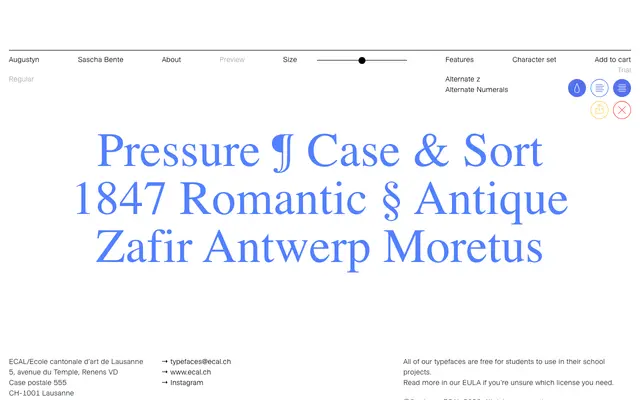
Augustyn Display
ECAL Typefaces · Sascha Bente · 2020
A high-contrast display serif drawn from an 18th-century Antiqua specimen found in the Plantin Moretus Museum in Antwerp.
Designed by Sascha Bente in 2020, Augustyn Display traces its origins to a letter-proof of an obscure 18th-century Antiqua, revived with careful attention to its historical character. The generous proportions and strong stroke contrast make it suited to large-scale headings and editorial display work. Its source material gives it a period warmth that distinguishes it from more generic revival serifs.
Derived from an 18th-century Antiqua specimen, Augustyn Display is a high-contrast serif designed specifically for large and medium sizes, placing it firmly in the display serif subcategory.